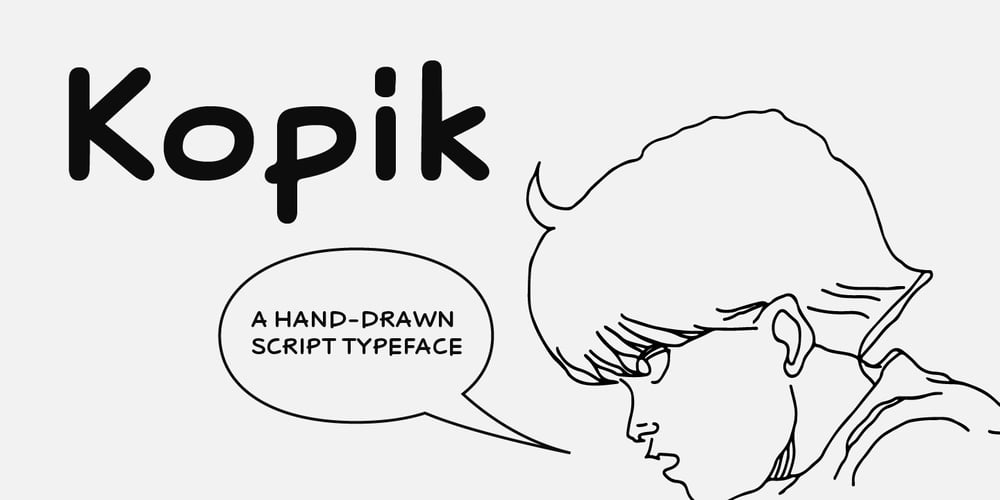
Kopik Font Family was designed by Jonathan Hill and published by The Northern Block. Kopik contains 6 styles and family package options. Kopik is a modern hand-drawn script inspired by the 1960’s architectural handwriting style practised by draftsmen. Originated using a Copic 1.0 Multiliner pen, then traced digitally using a stylus and tablet to help reduce imperfections. The result is a simple, readable, monolinear typeface with a marker pen quality suitable for a wide range of written applications.Details include 440 characters, three weights with matching italics, alternative a, g, and y four numerals variations. Opentype features inferiors, superiors, fractions and language support covering Western, South and Central Europe.